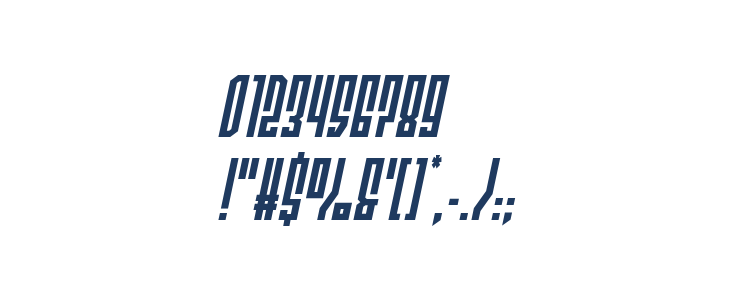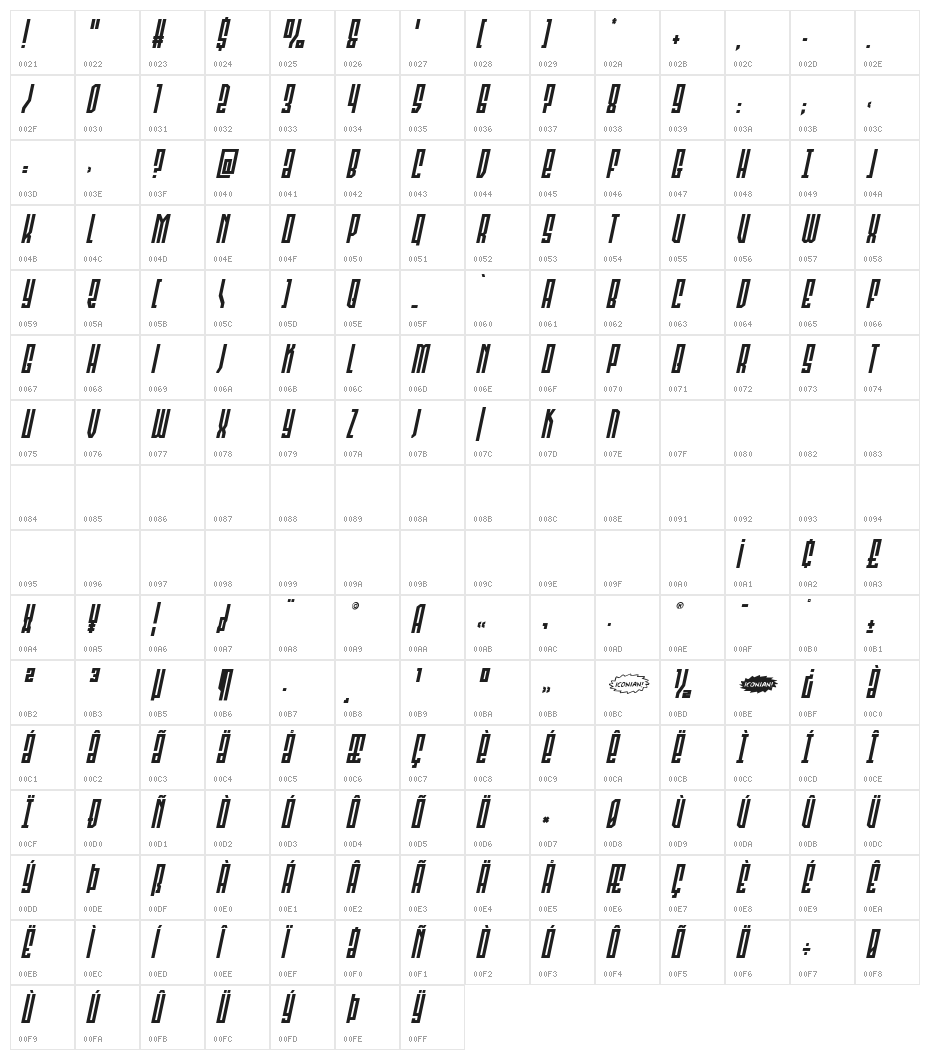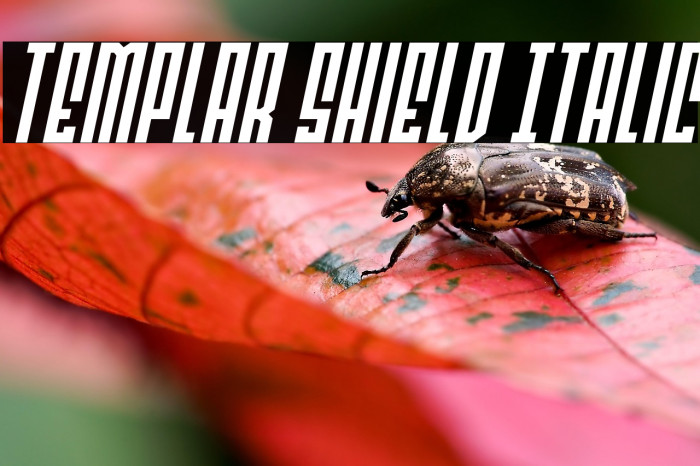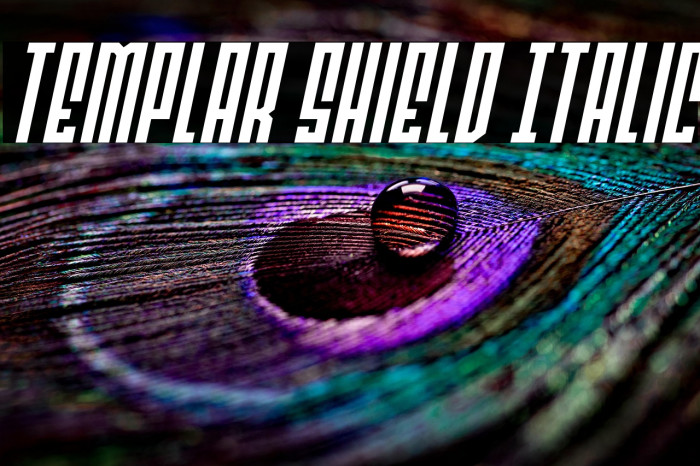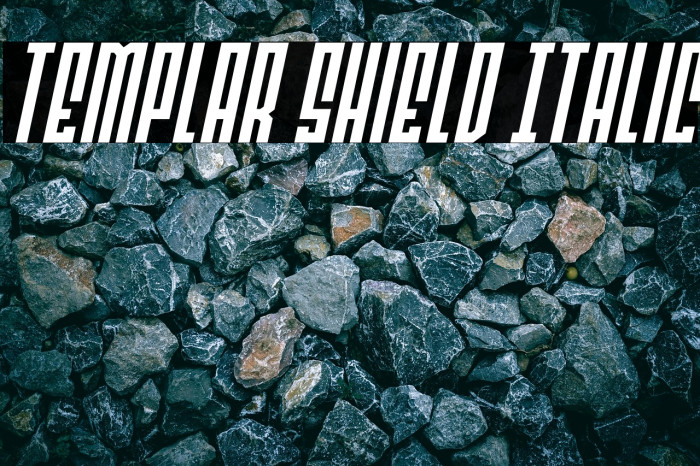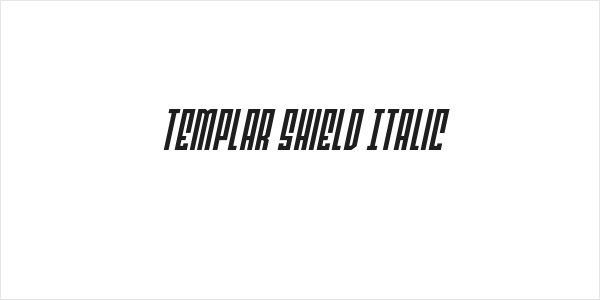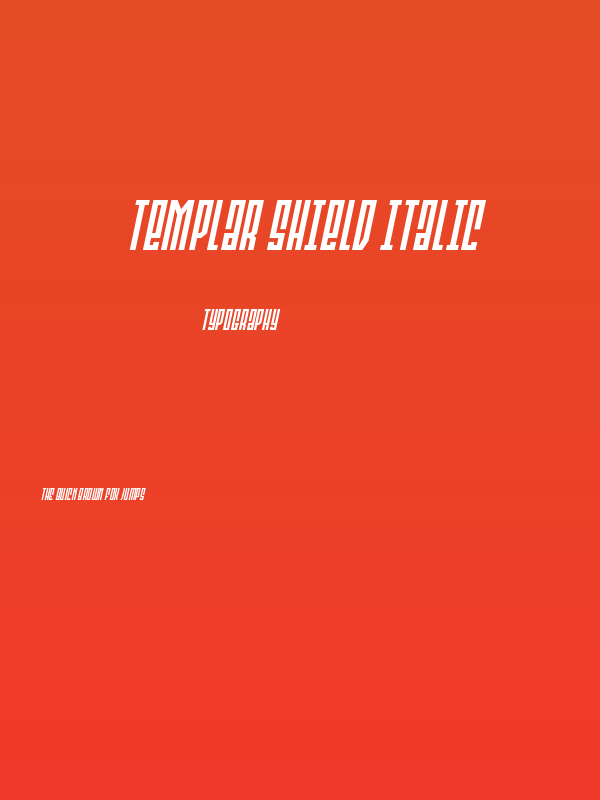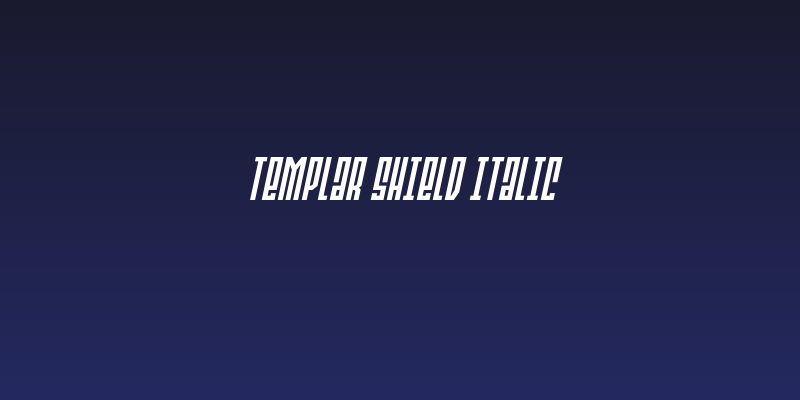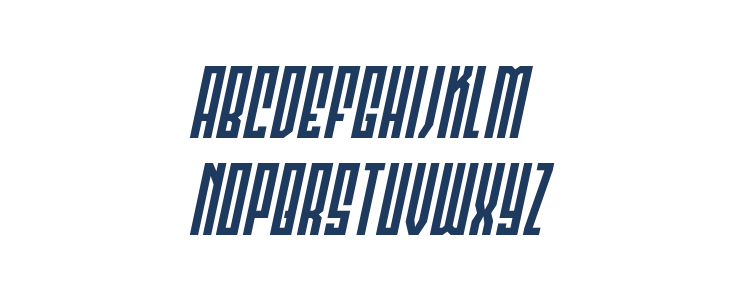
Templar Shield Italic Font
Templar Shield Italic Description
This font features a bold, italicized style with sharp, angular edges and a distinct slant that gives it a dynamic and aggressive appearance. The characters are tightly spaced, enhancing its compact and impactful look. The uppercase and lowercase letters maintain a consistent height, contributing to a uniform and cohesive design. The numerals and special characters follow the same angular and slanted style, ensuring a seamless integration across all text elements. The font's high contrast in stroke thickness adds to its striking and bold presence, making it ideal for attention-grabbing headlines or logos.
| Proposed Projects | Ideal for sports branding, video game titles, action movie posters, and dynamic logo designs. |